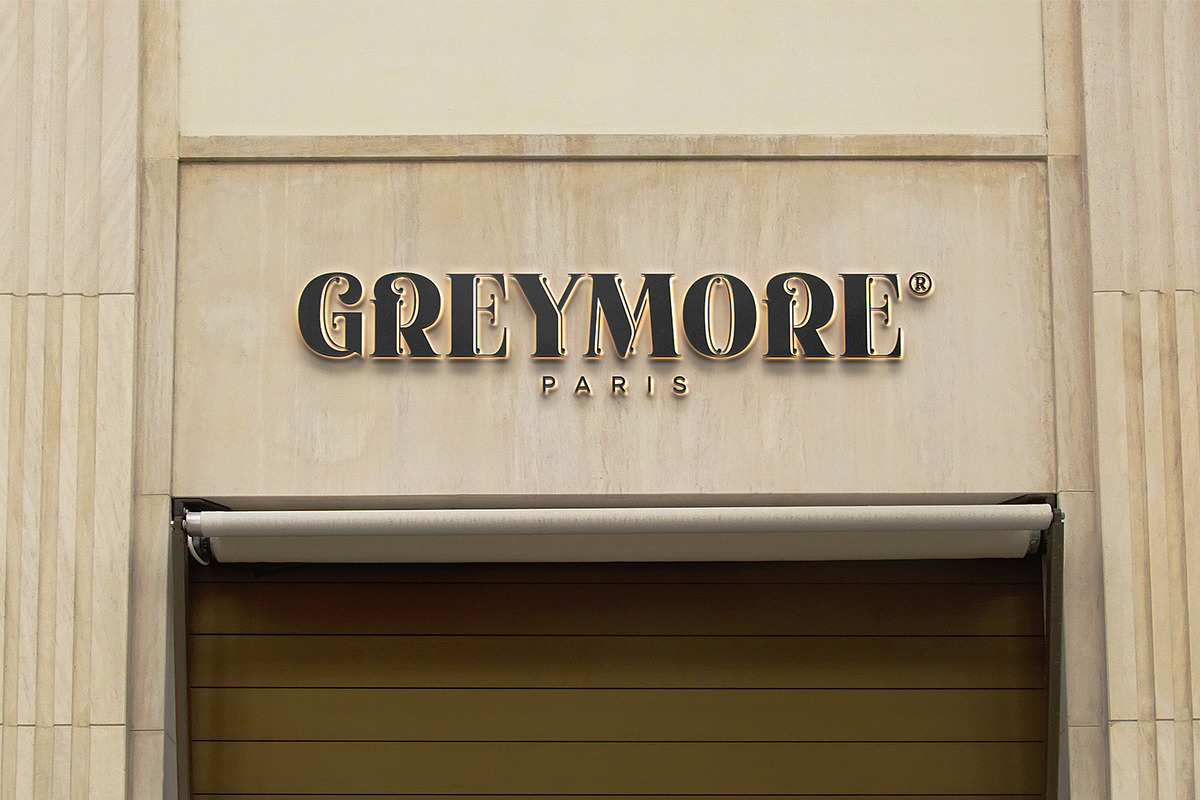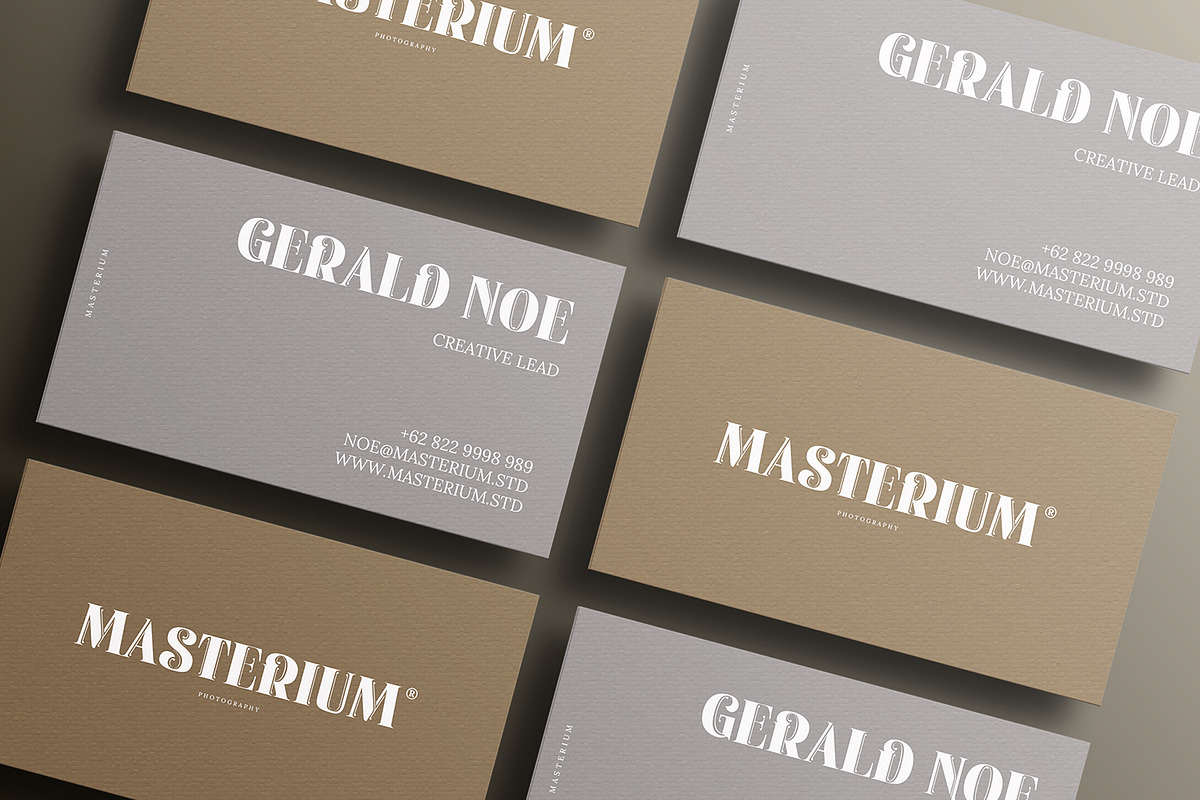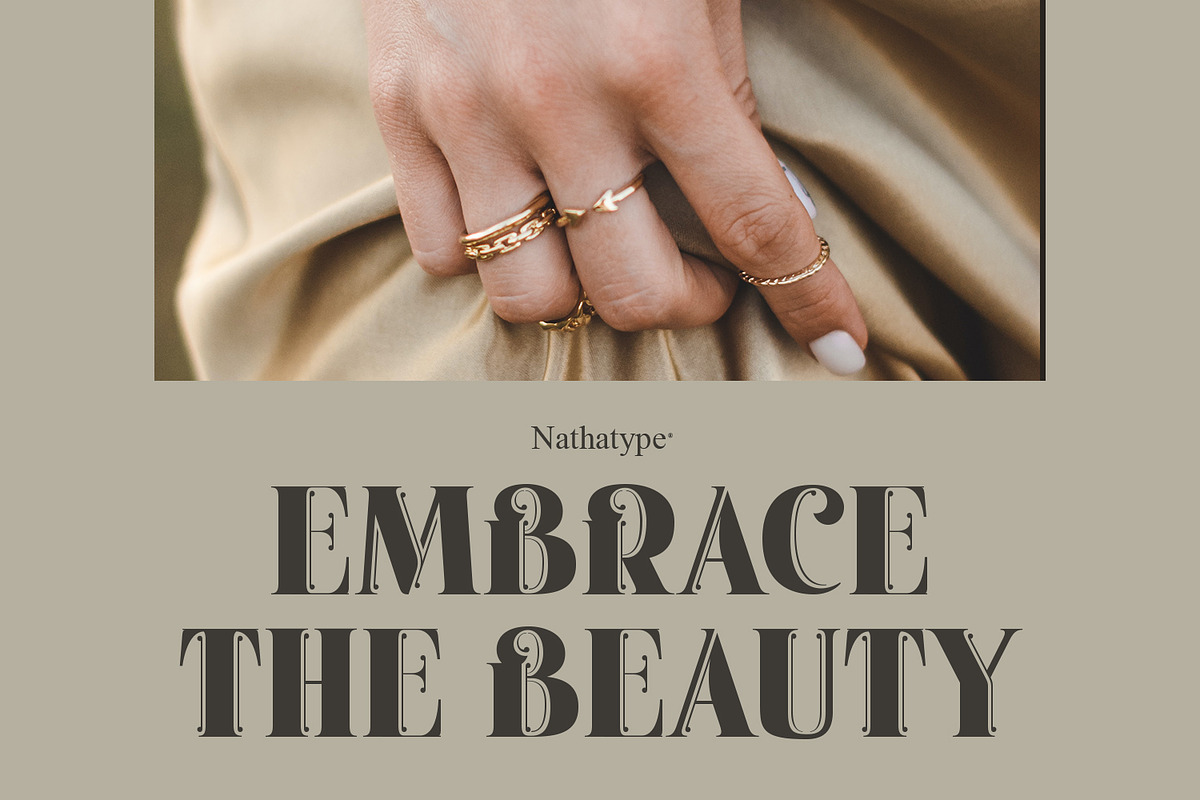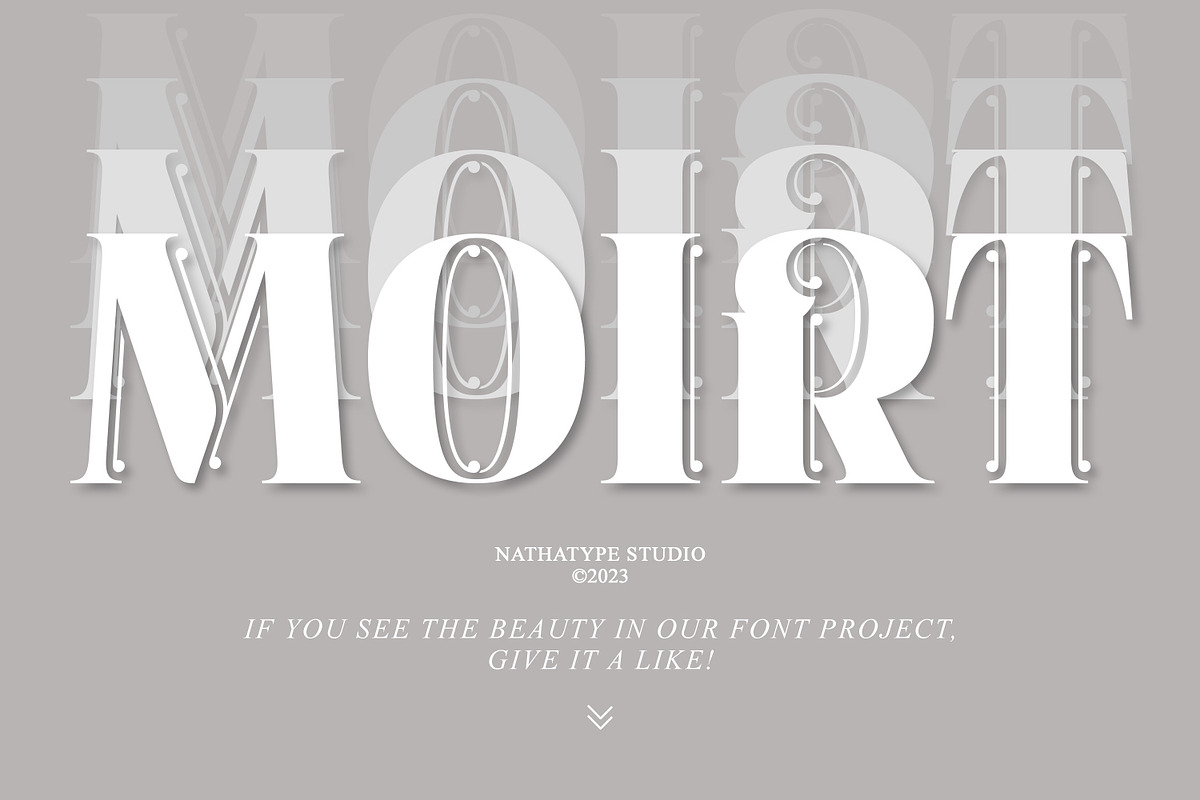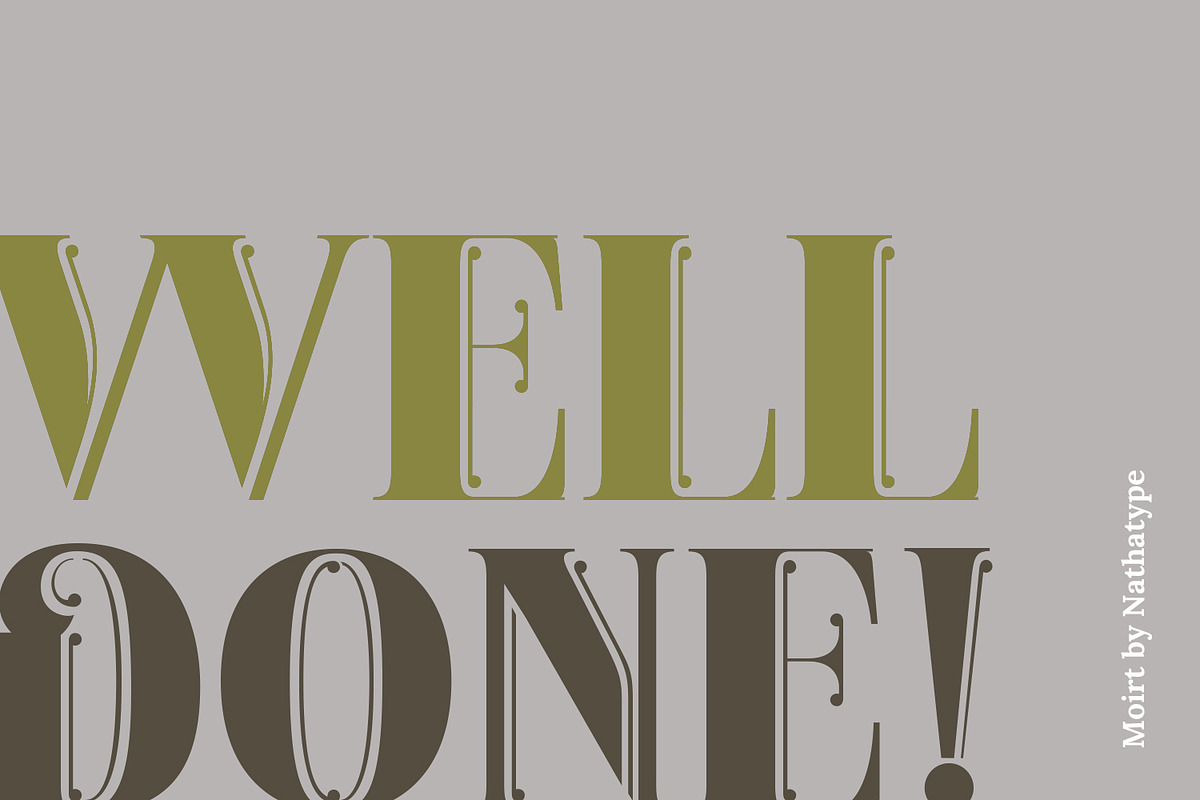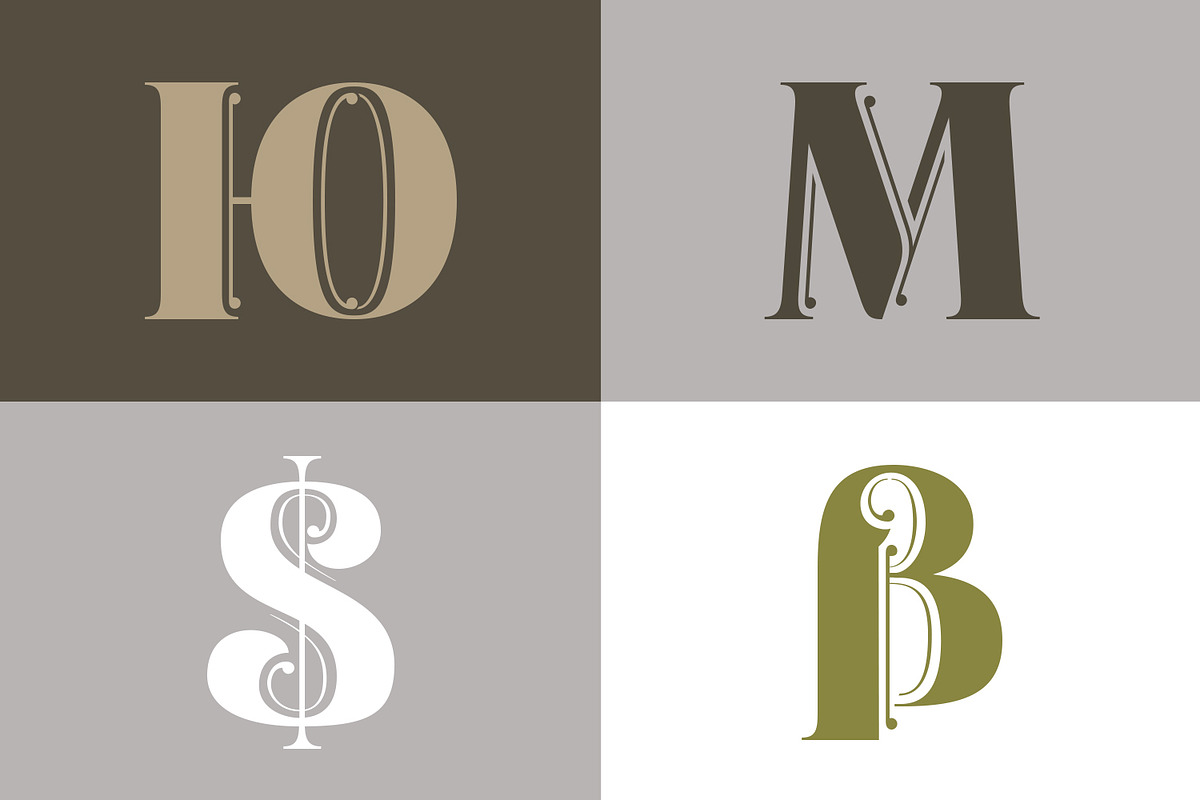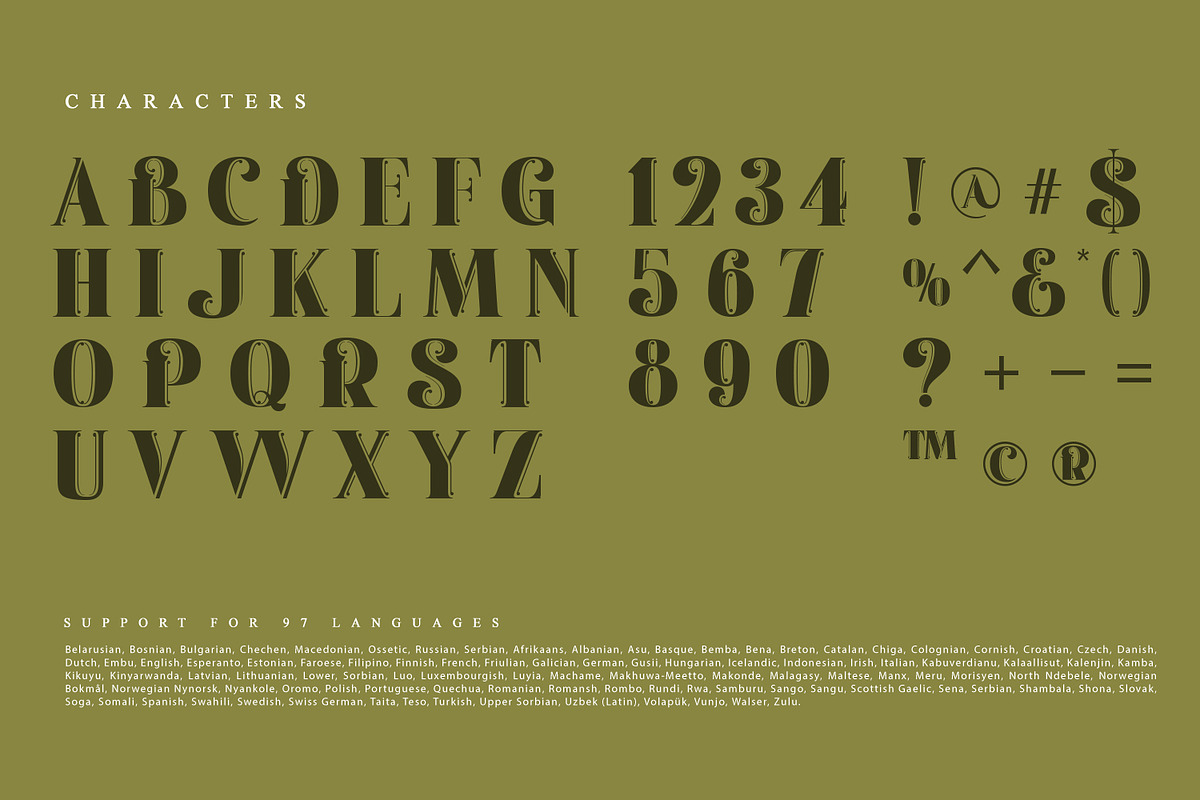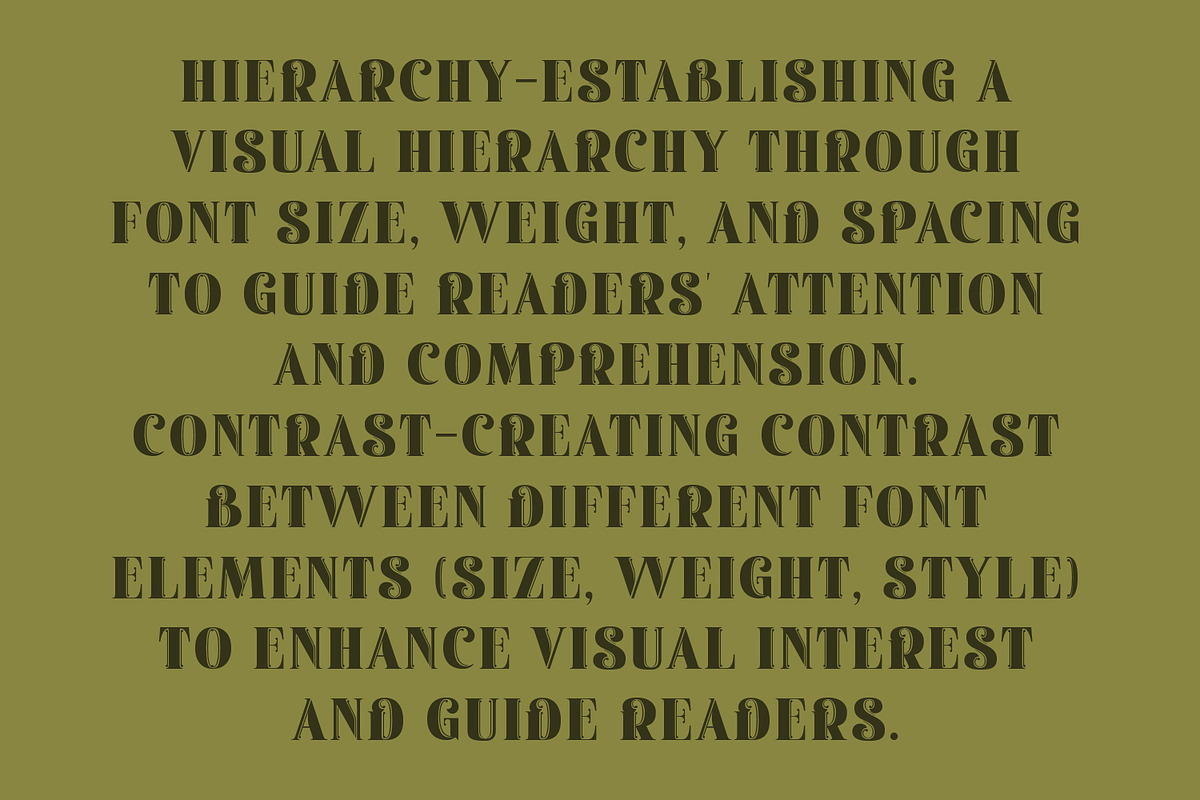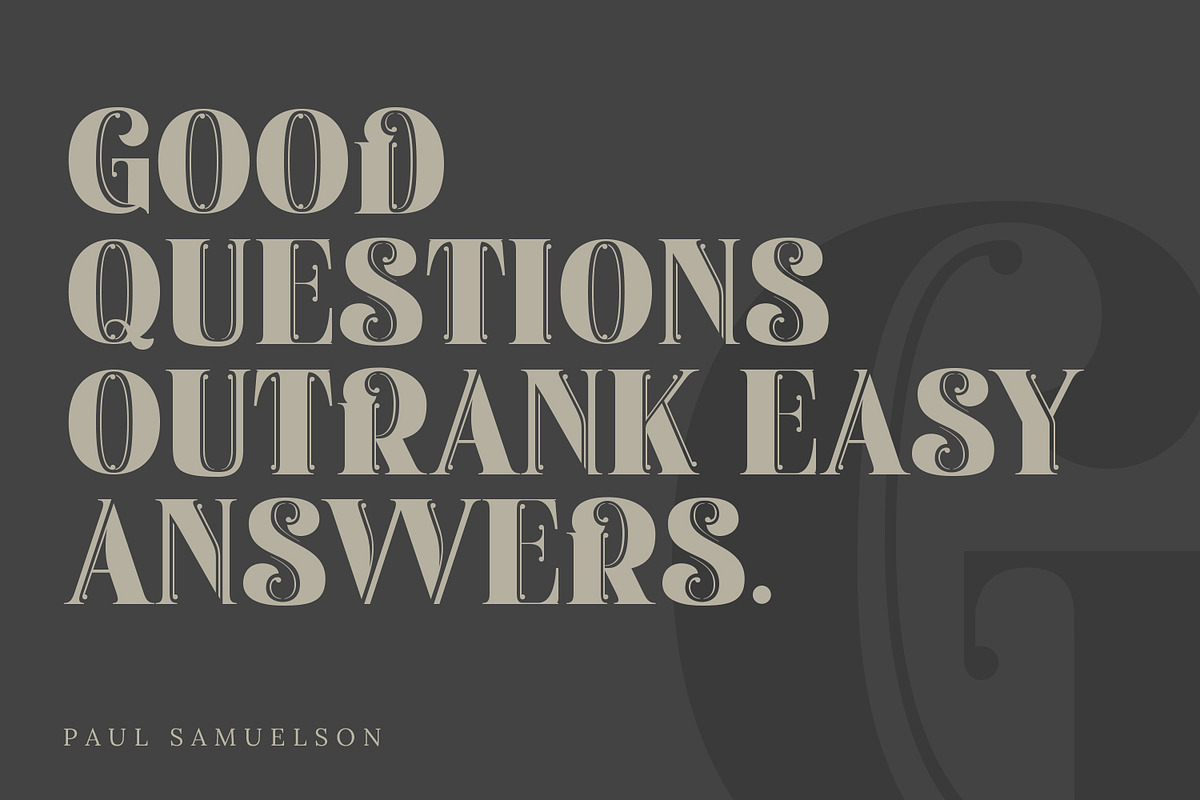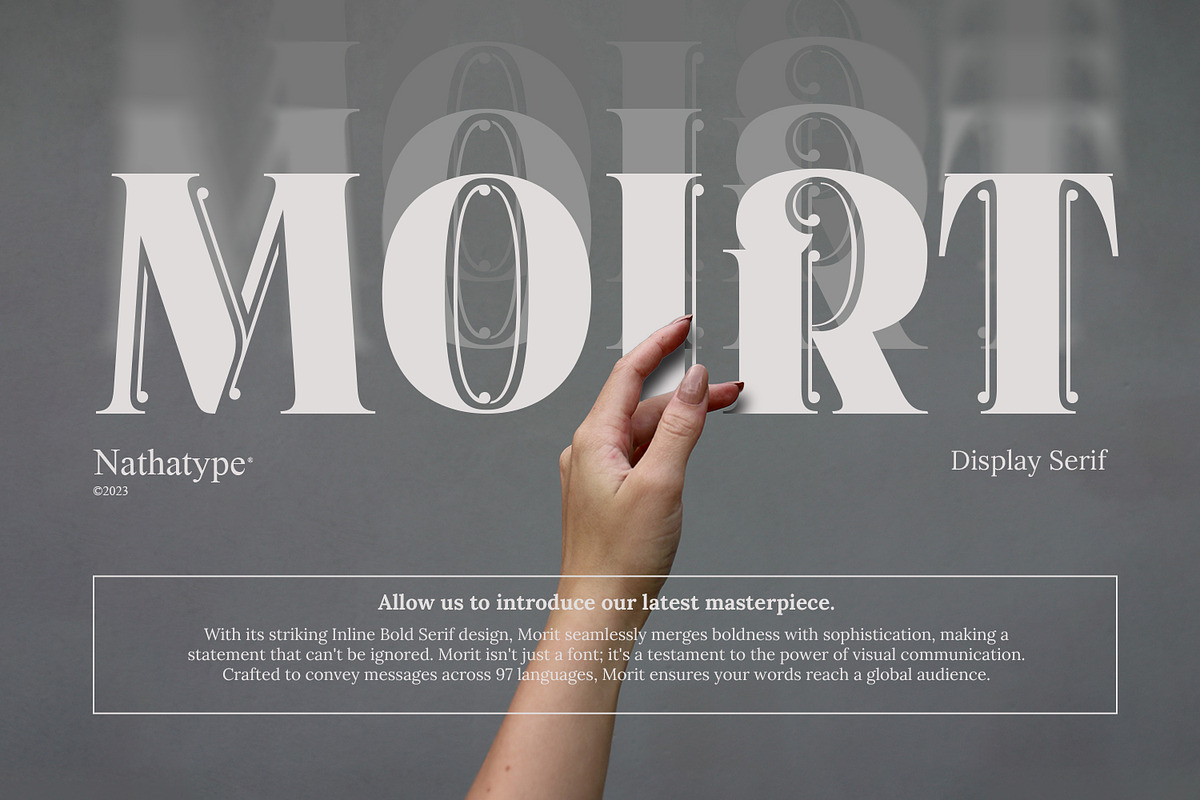
Moirt
Prepare to make a bold statement with Moirt, an uppercase serif display font. Moirt exudes strength and authority with its very heavy weight. Each uppercase letter stands tall and robust, making a commanding presence on any canvas. The serifs are robust and meticulously sculpted, conveying a sense of timeless sophistication.
The generous spacing in Moirt enhances legibility and gives the font a contemporary, open feel. What truly sets Moirt apart is its inline design. Delicate lines run parallel to the edges of the letters, adding a unique and captivating visual element. This inline detail adds depth and dimension to the font, creating an intriguing contrast with its heavy weight and bold serifs. Enjoy the features here.
Moirt fits in headlines, logos, posters, flyers, invitations, branding materials, print media, editorial layouts, and many more. Find out more ways to use this font by taking a look at the font preview.